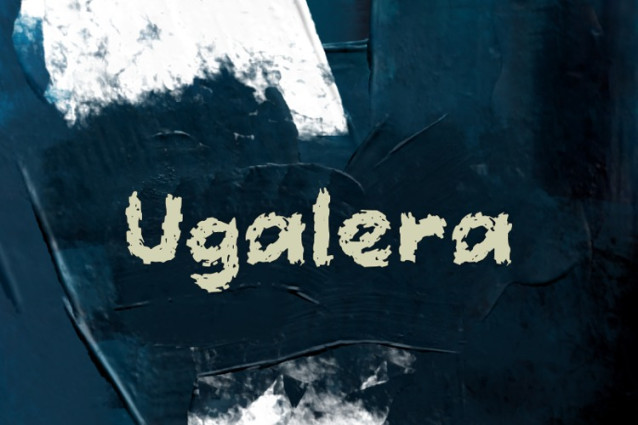
Ugalera Font
Ugalera Font, Suitable for any design needs : logo, branding, modern advertising design, logos, poster quote, book / cover Title, editorial design, website / blog, card, t-shirts, and any hand-lettered needs.